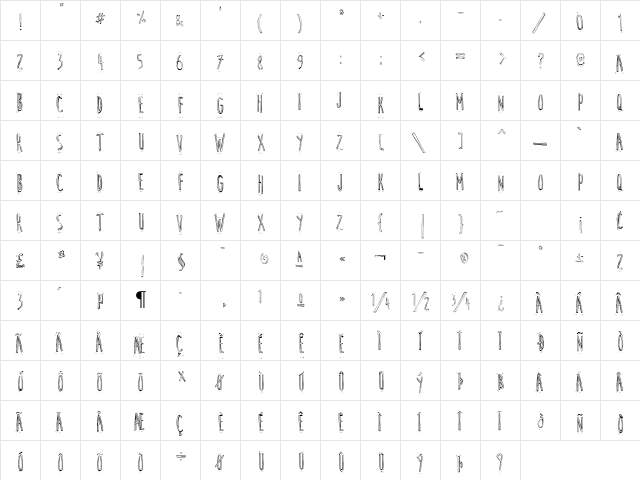
Cute Cartoon Regular
| Foundry | Galdino Otten |
Design Context for Cute Cartoon Typeface
Cute Cartoon has an approachable, lighthearted character — its loose, expressive forms are well-suited to children's content, casual branding, and fun-first design.
Font Pairing: Pairs well with a rounded or humanist sans for body copy, maintaining the friendly tone without relying on Cute Cartoon to carry extended reading.
Pro Tip: Use Cute Cartoon at larger display sizes where its expressive character can land. Pair with a clean, simple sans for body copy to maintain readability.